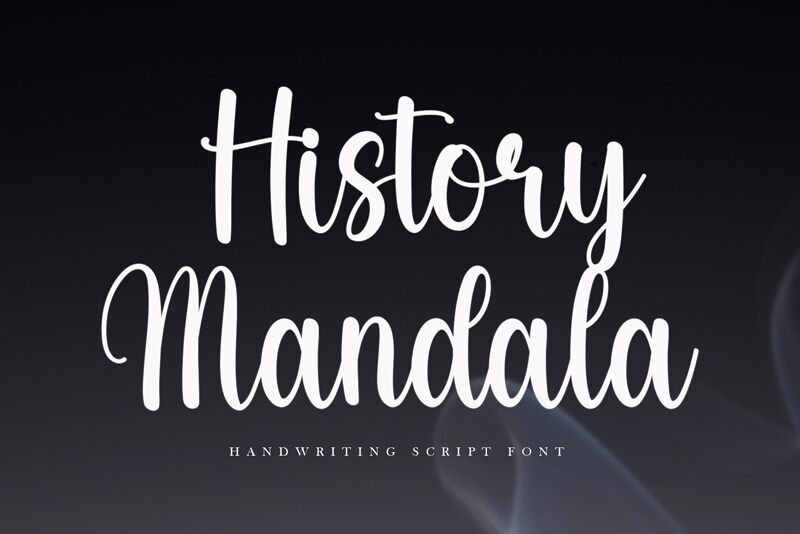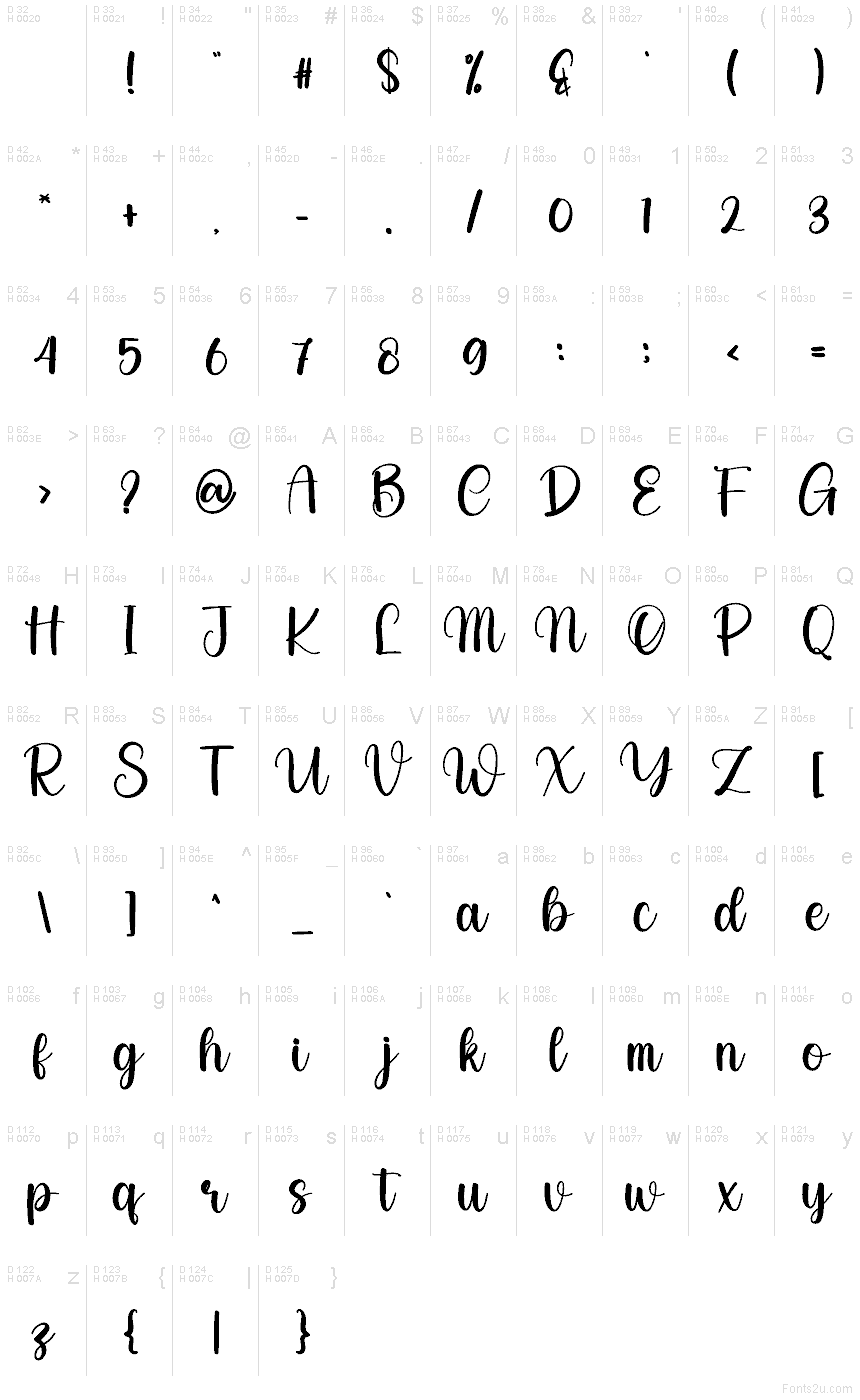
History Mandala
History Mandala font by creatype designer is a free handwritten script typeface with a smooth, inky flow and a friendly, modern calligraphy feel. Tall, rounded letters sway gently up and down the line, giving every word a soft bounce that feels personal and warm rather than stiff or formal. The strokes are full and velvety, so titles feel lush and inviting without losing clarity.
Using History Mandala, this free font shines on wedding invitations, save-the-dates, feminine branding, product packaging, social media graphics, and quote posters. Its even rhythm and generous curves make short phrases feel like they were written just for the viewer. Pair this script with a clean sans serif at smaller sizes to keep information readable while letting the History Mandala name or headline carry the romance.
This font retains a classy calligraphic influence while feeling contemporary and fresh. This versatility will attract a wide range of creative ideas, from letterheads and titles to stationery.